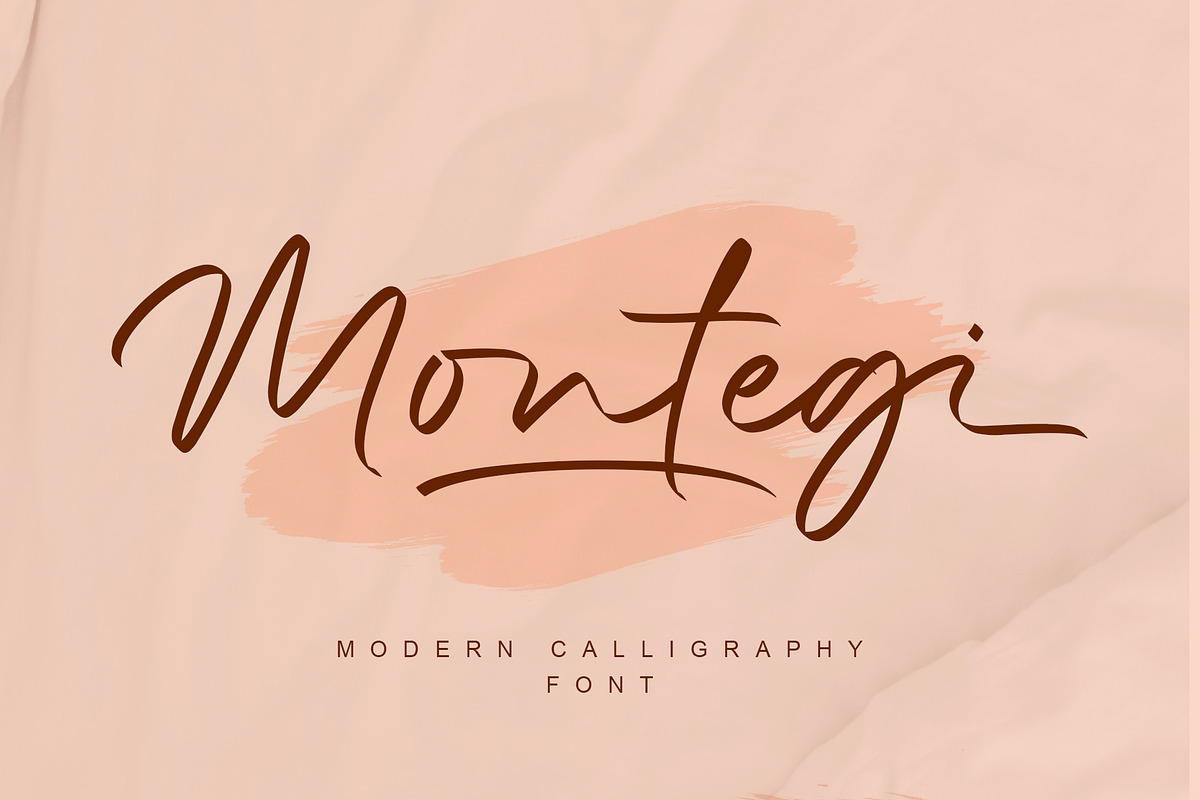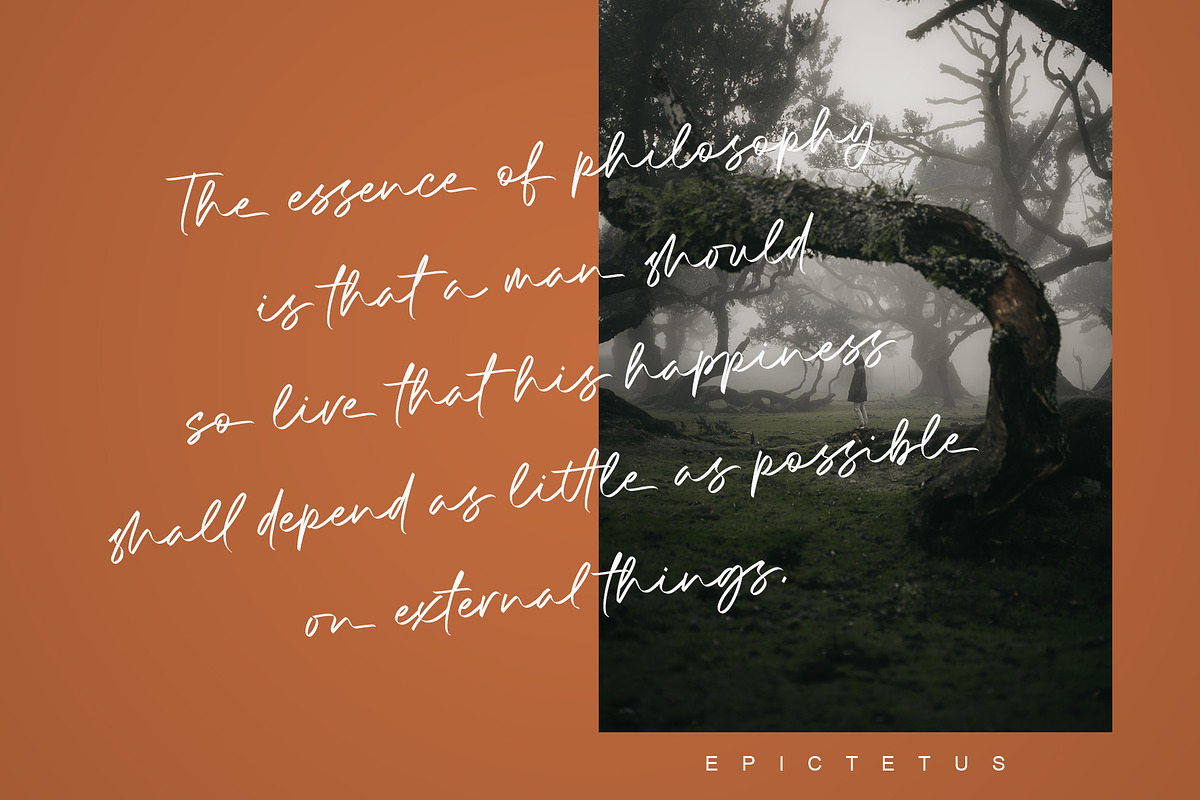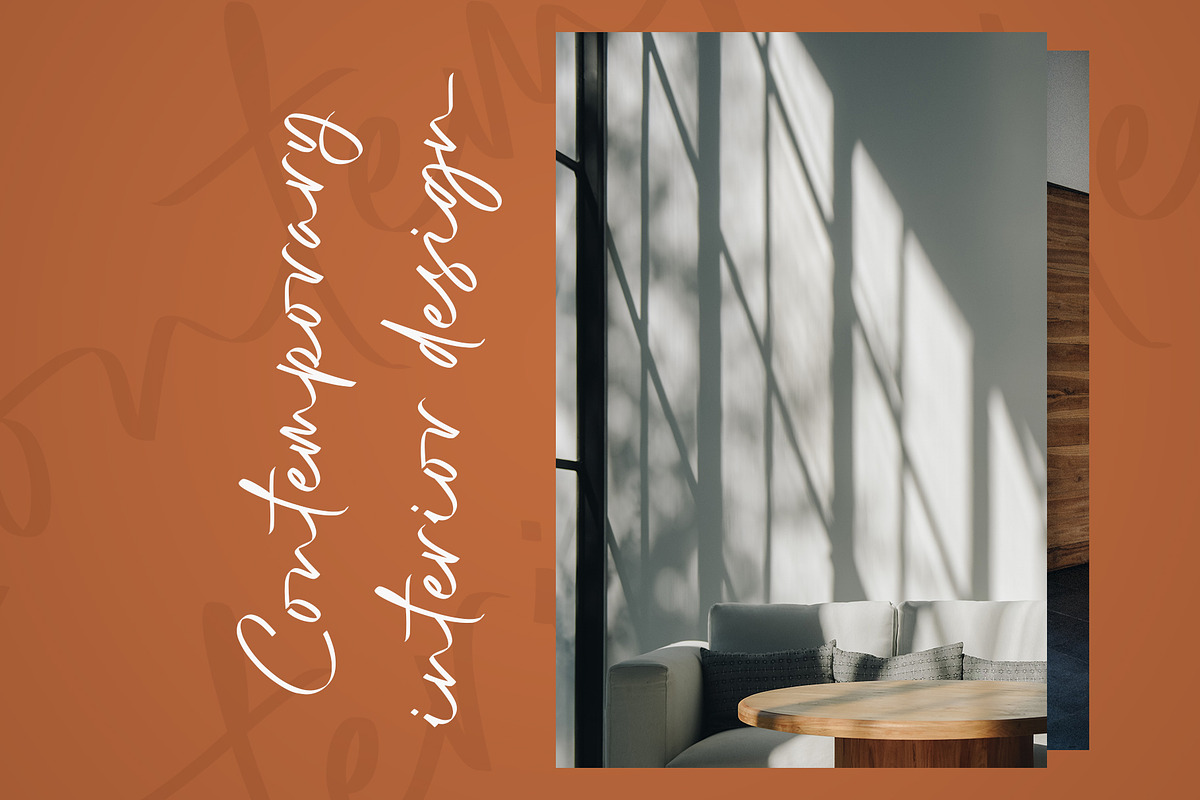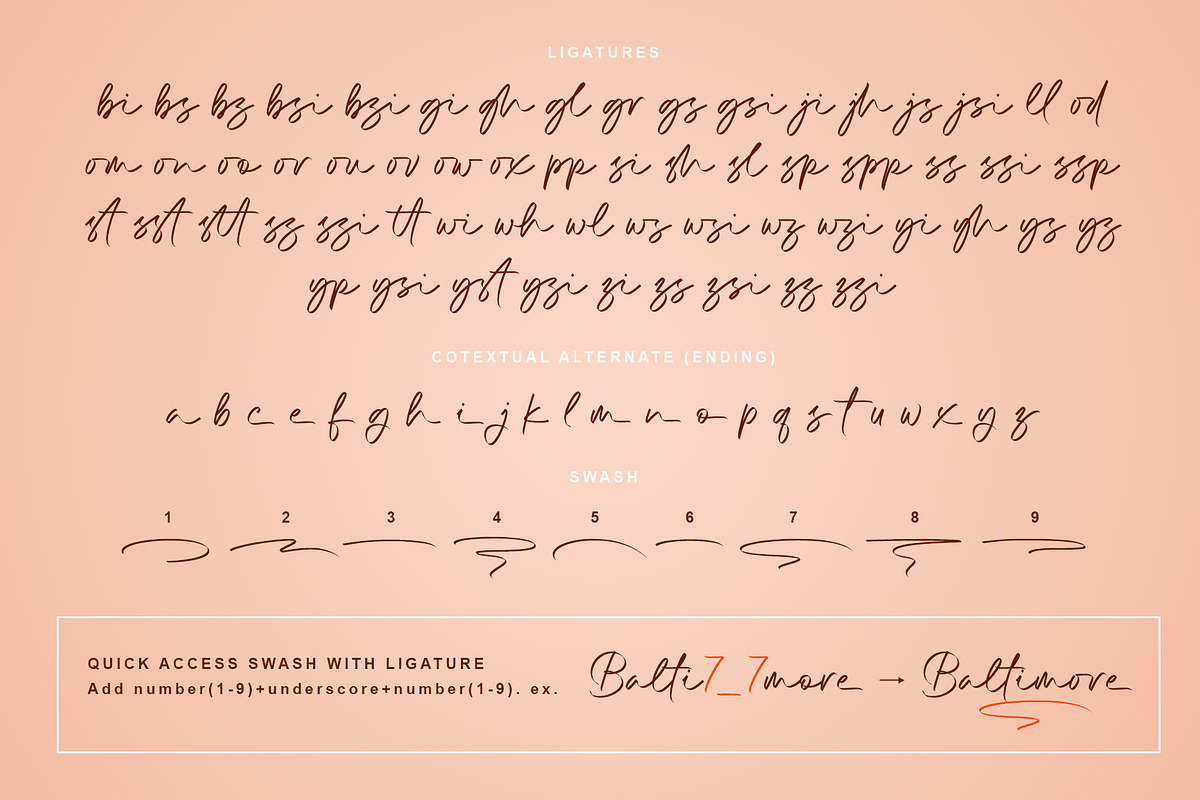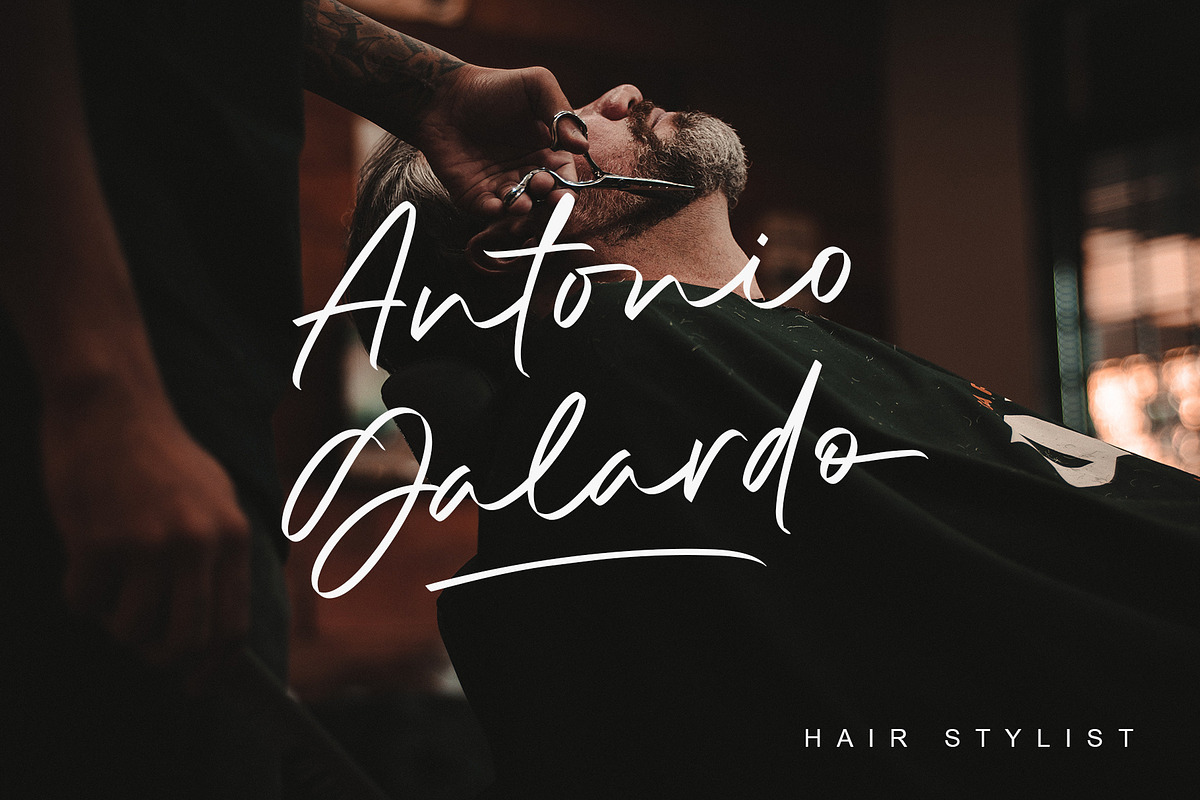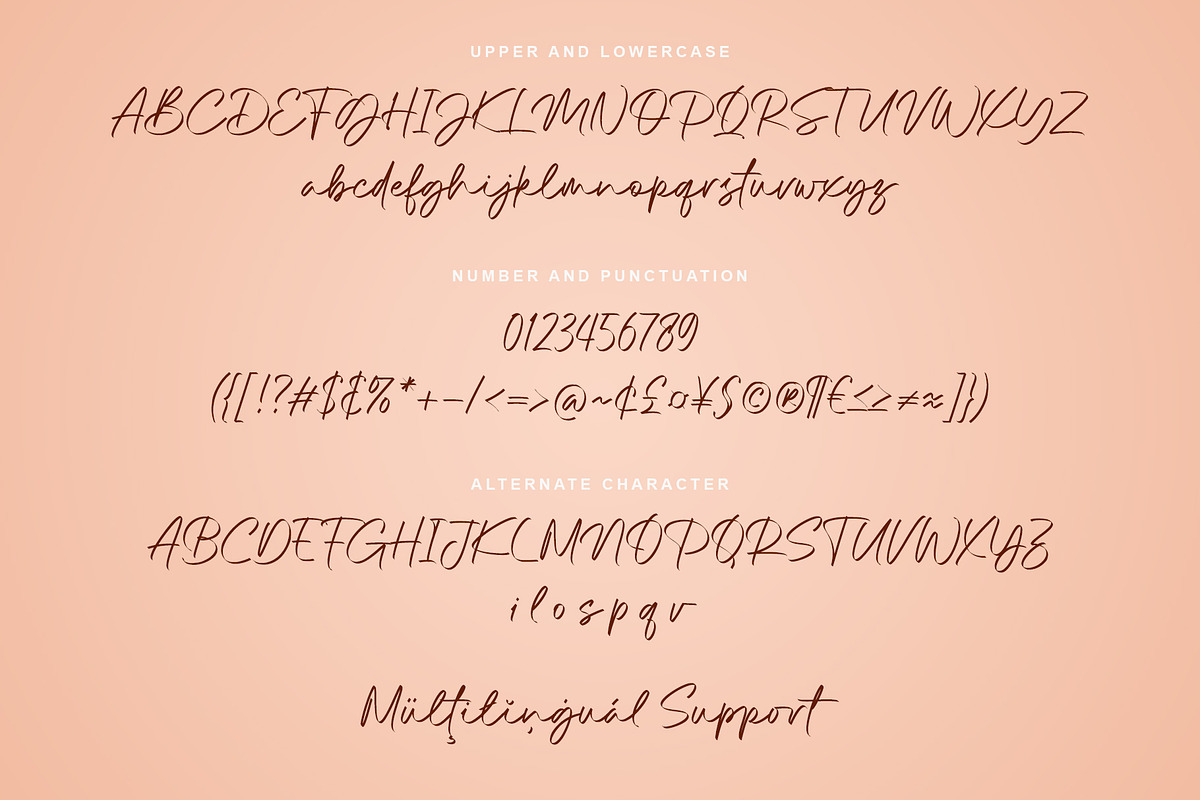
Montegi | Modern Calligraphy
Montegi is a modern calligraphy font. it has a gentle and beautiful flow, and as a result it will elevate each of the designs you wish to create!. It’s the perfect font for wedding invitations, stationery, photography, social media posts, product packaging, greeting cards, and much more!
- Contextual Alternate
Quick access Swash
- Swash: Add number (1-9) + underscore + number (1-9). Ex: 1_1, 2_2, 3_3, 4_4, 5_5, 6_6, 7_7, 8_8, 9_9